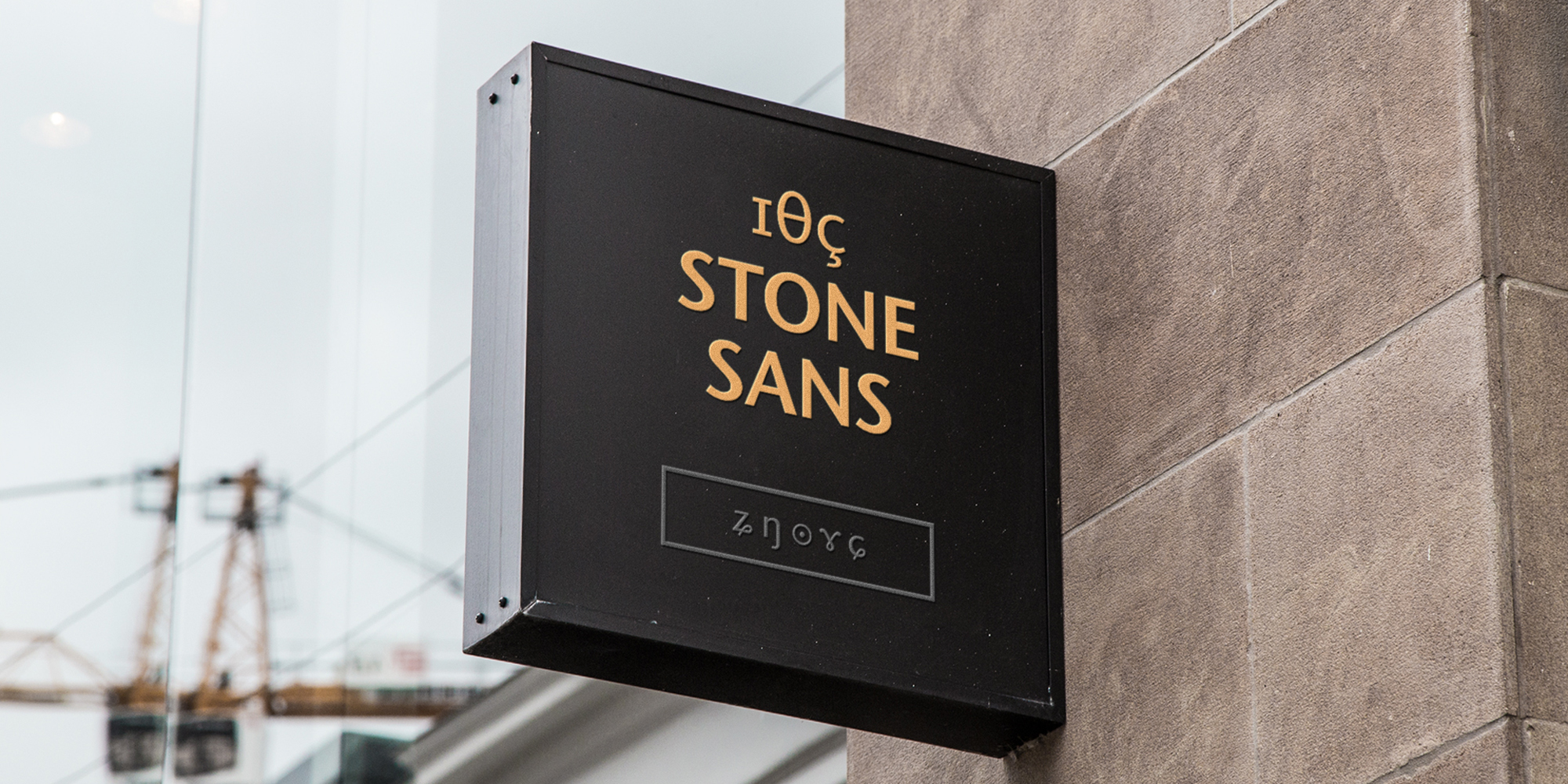
ITC Stone Sans Font is perfect for professional corporate branding, modern business communications, contemporary magazine layouts, clean web design interfaces, sophisticated marketing materials, architectural firm identities, tech company documentation, educational institution graphics, professional presentation design, and versatile publishing applications.
ITC Stone Sans Font is exciting because it achieves the perfect synthesis of humanist warmth and geometric precision through its expertly crafted letterforms that balance technical clarity with approachable character, creating an ideal foundation for professional communication that feels both authoritative and genuinely human.
The ITC Stone Sans Font family includes Regular, Bold, Medium, Semibold, Italic, and various weight variants, each maintaining the distinctive balanced character while offering different weights and styles for comprehensive professional design applications.
Build your professional foundation with ITC Stone Sans Font Free Download. This masterfully engineered typeface represents the perfect balance between humanist tradition and contemporary functionality, bringing warmth and technical precision to professional communication. The font's versatile character and proven reliability make it ideal for corporations, design agencies, and professional organizations seeking typography that communicates both competence and approachability in today's competitive business environment.
ITC Stone Sans Font excels in corporate and professional applications where versatility and balanced communication are paramount. Its distinctive character combines the best aspects of humanist and geometric traditions, making it perfect for businesses, educational institutions, and professional services targeting audiences who value both technical competence and human connection in their professional interactions and communications.
The development of ITC Stone Sans Font involved Sumner Stone's deep understanding of typographic harmony and professional communication needs, ensuring each character achieves optimal balance between functionality and personality. This comprehensive approach creates letterforms that adapt seamlessly to various contexts while maintaining consistent professional appeal, making it particularly effective for brands requiring flexible yet reliable typography.
For designers working with corporate brands, professional services, or educational institutions, ITC Stone Sans Font provides exceptional versatility and professional credibility. It pairs seamlessly with both traditional and contemporary design elements, complements various visual approaches, and maintains its balanced character across all scales and applications, from large environmental graphics to detailed business documents.
Whether you're creating corporate identities, professional publications, educational materials, or business communications, ITC Stone Sans Font delivers the balanced professionalism that resonates with contemporary audiences who appreciate both technical excellence and human warmth. Its combination of versatile functionality and approachable character makes it an indispensable tool for creating professional communications that are both effective and genuinely engaging.